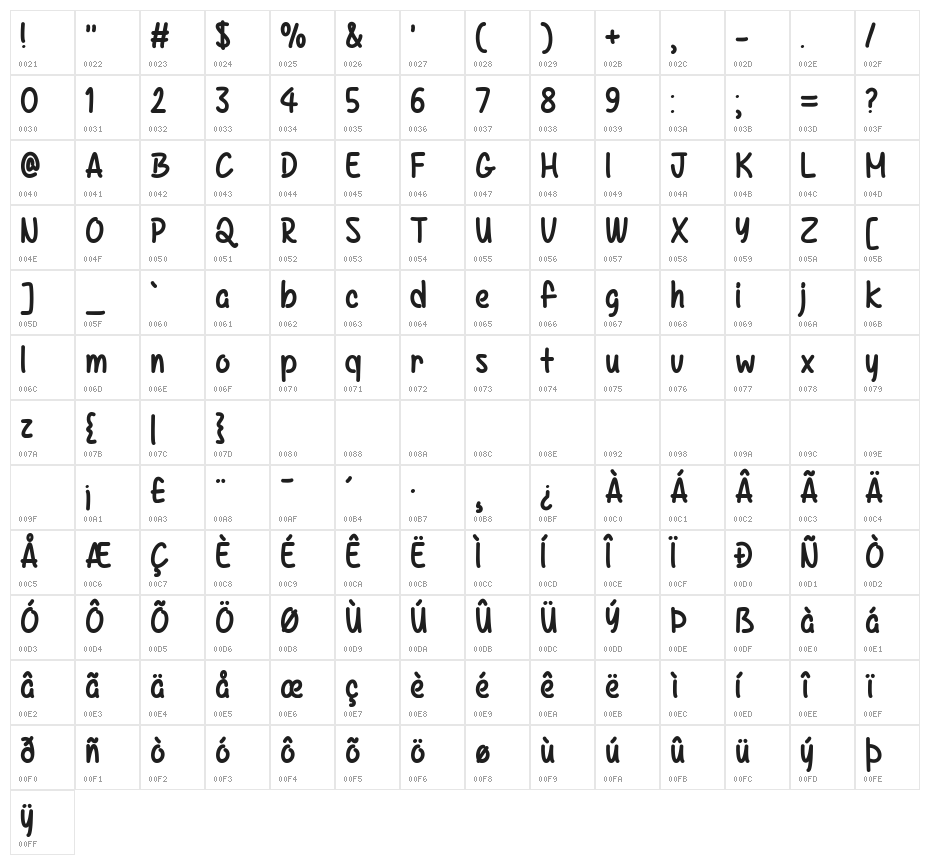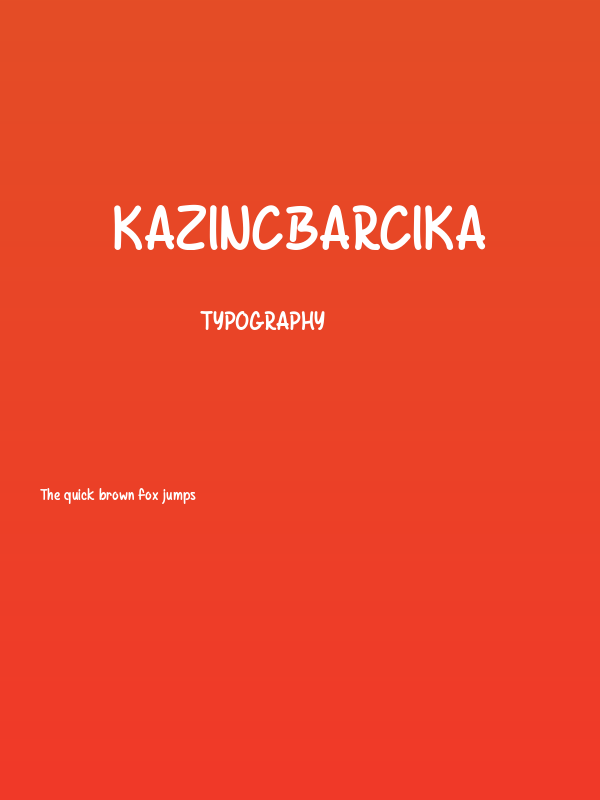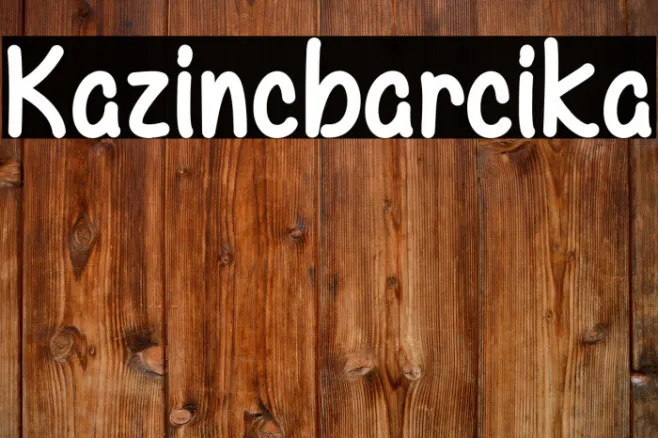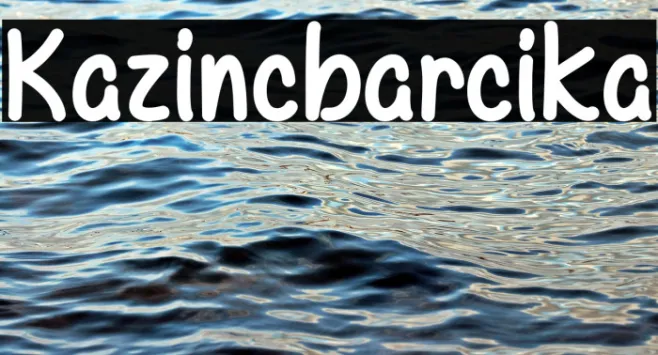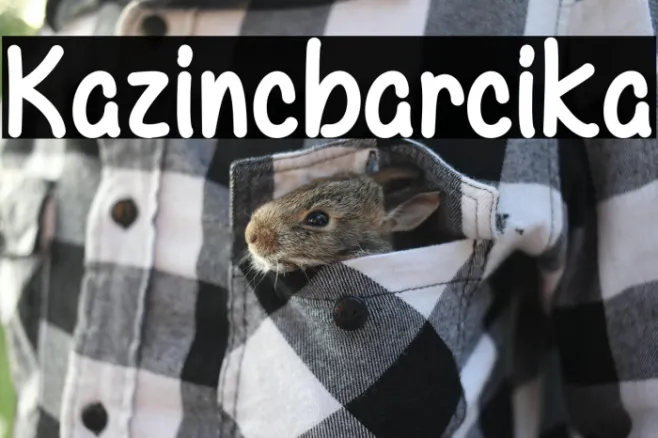
Kazincbarcika Font
Kazincbarcika Description
This playful and bold font features rounded, hand-drawn characters that convey a sense of fun and approachability. The uppercase and lowercase letters maintain a consistent stroke width, giving the font a uniform appearance. The numbers and special characters are designed with the same playful style, making them easily recognizable and cohesive with the alphabet. The font's informal and friendly look makes it suitable for projects that aim to be engaging and accessible.
| Proposed Projects | Ideal for children's books, playful branding, casual invitations, and social media graphics. |